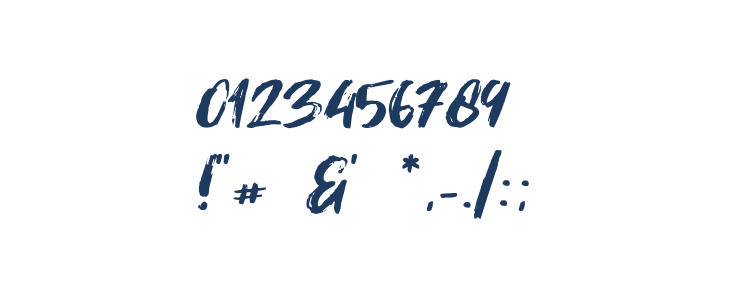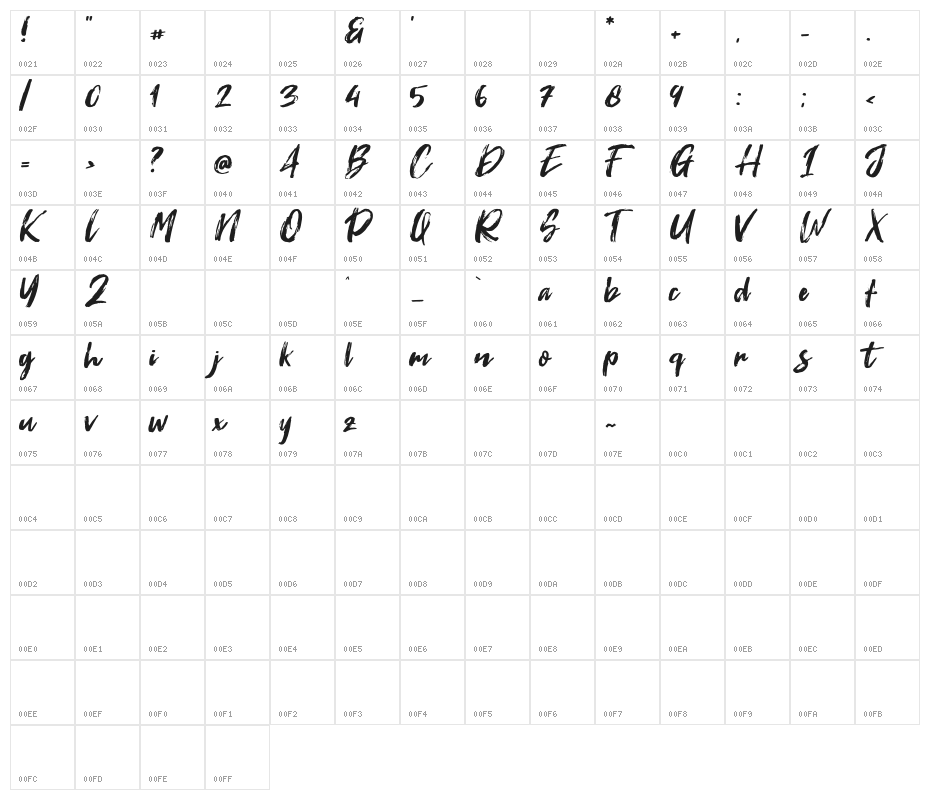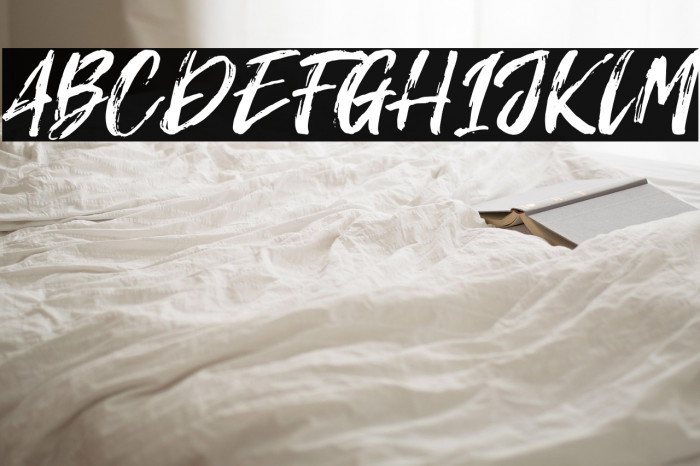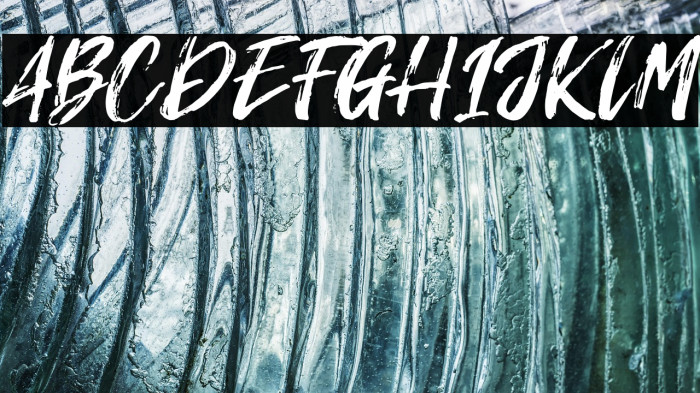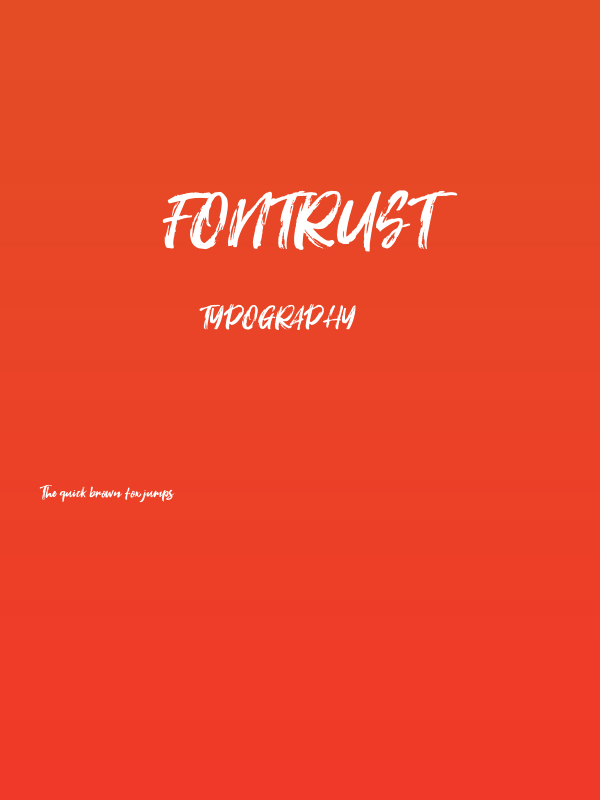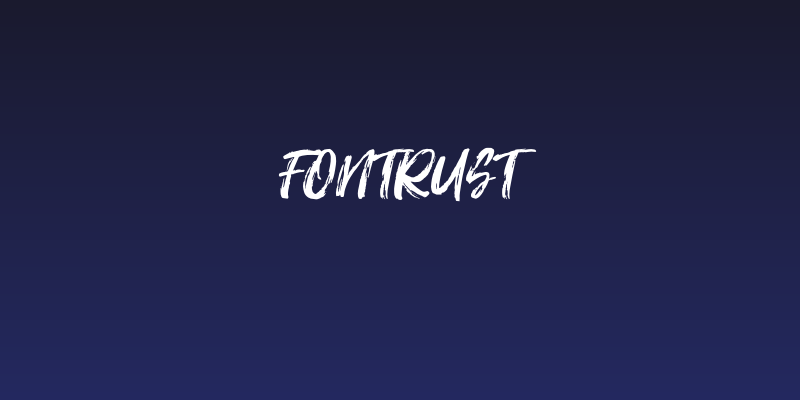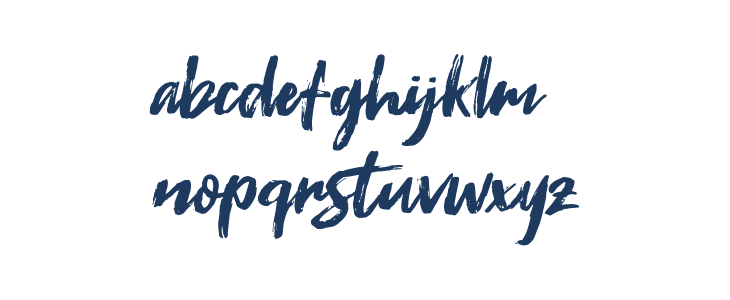
Fontrust Font
Fontrust Description
This font exhibits a bold, expressive brush style with a dynamic and energetic appearance. The strokes are thick and uneven, giving it a hand-painted look that is both artistic and spontaneous. The uppercase and lowercase letters maintain a consistent flow, with some letters featuring exaggerated curves and angles. The numbers and special characters are equally bold, maintaining the same brush-like texture. This font is ideal for projects that require a strong visual impact and a creative flair.
| Proposed Projects | Perfect for artistic posters, branding, packaging design, and social media graphics that require a bold statement. |